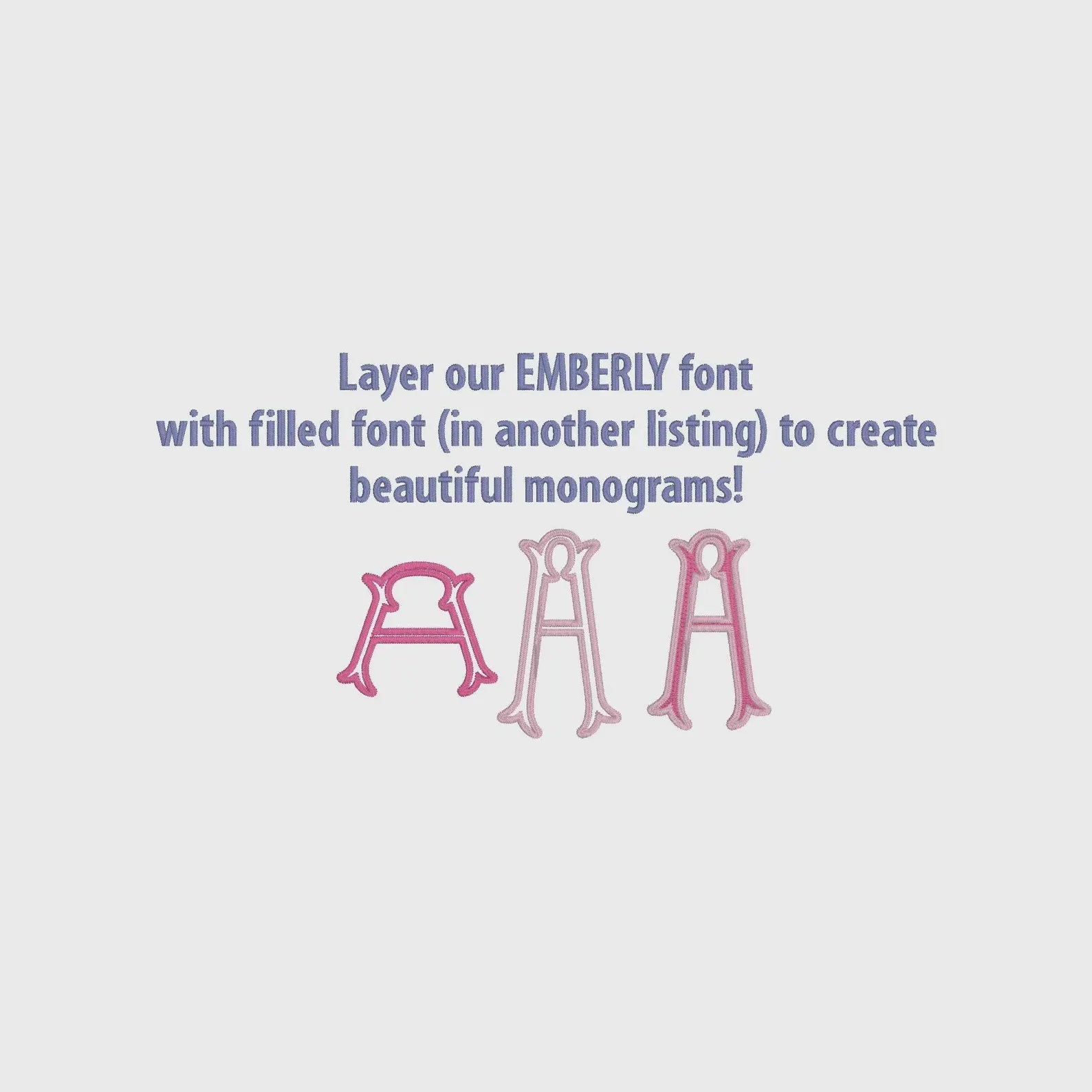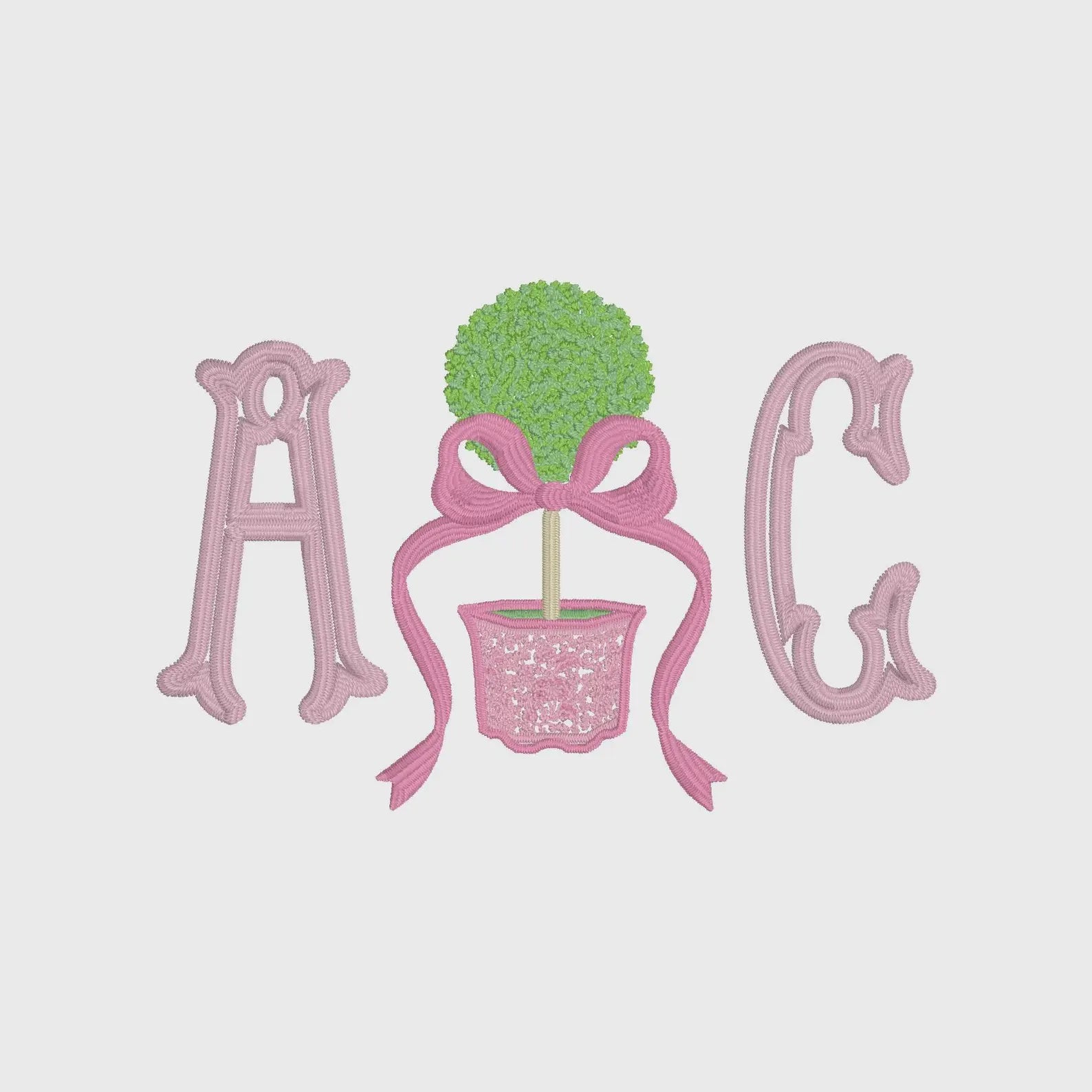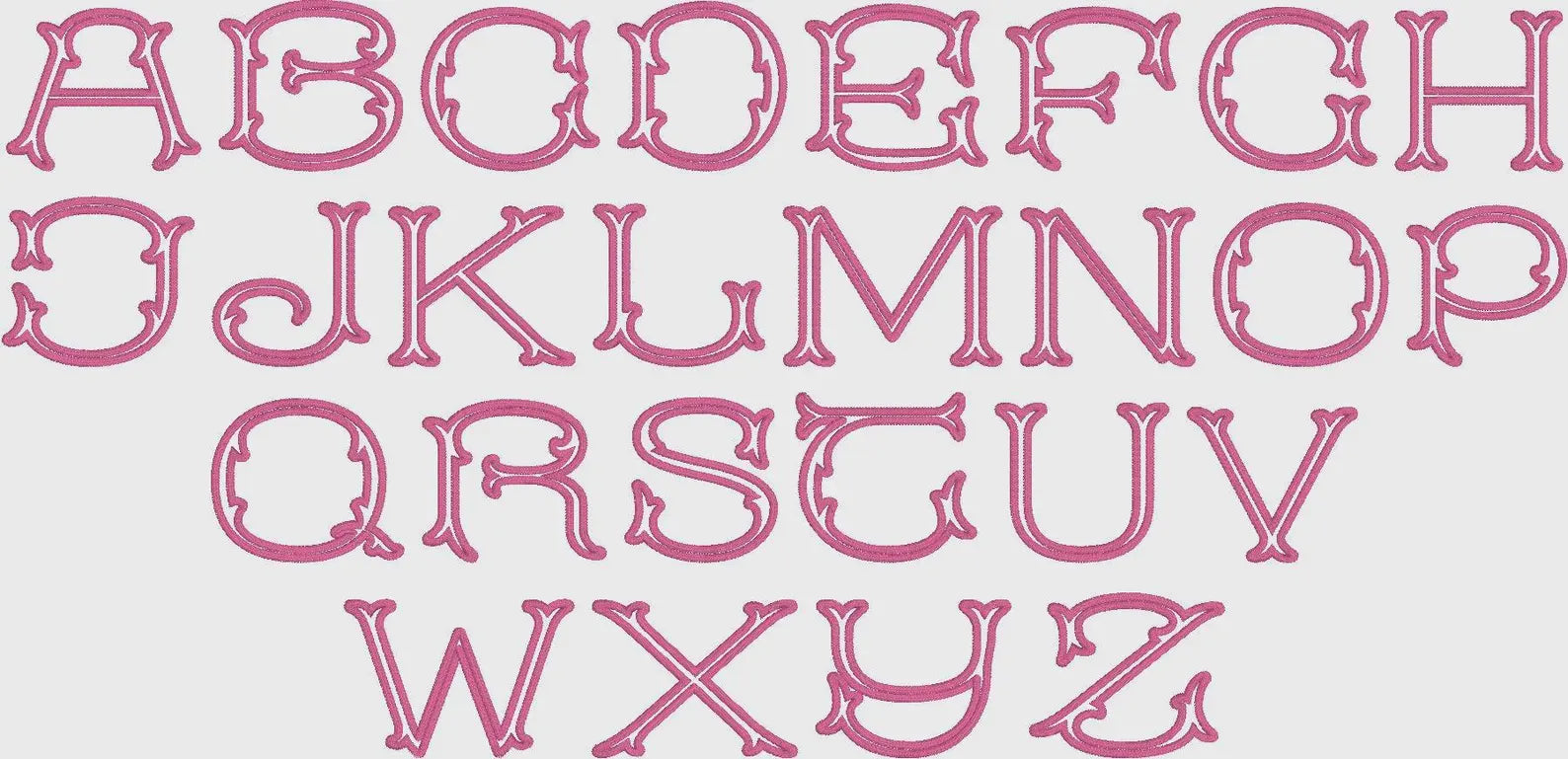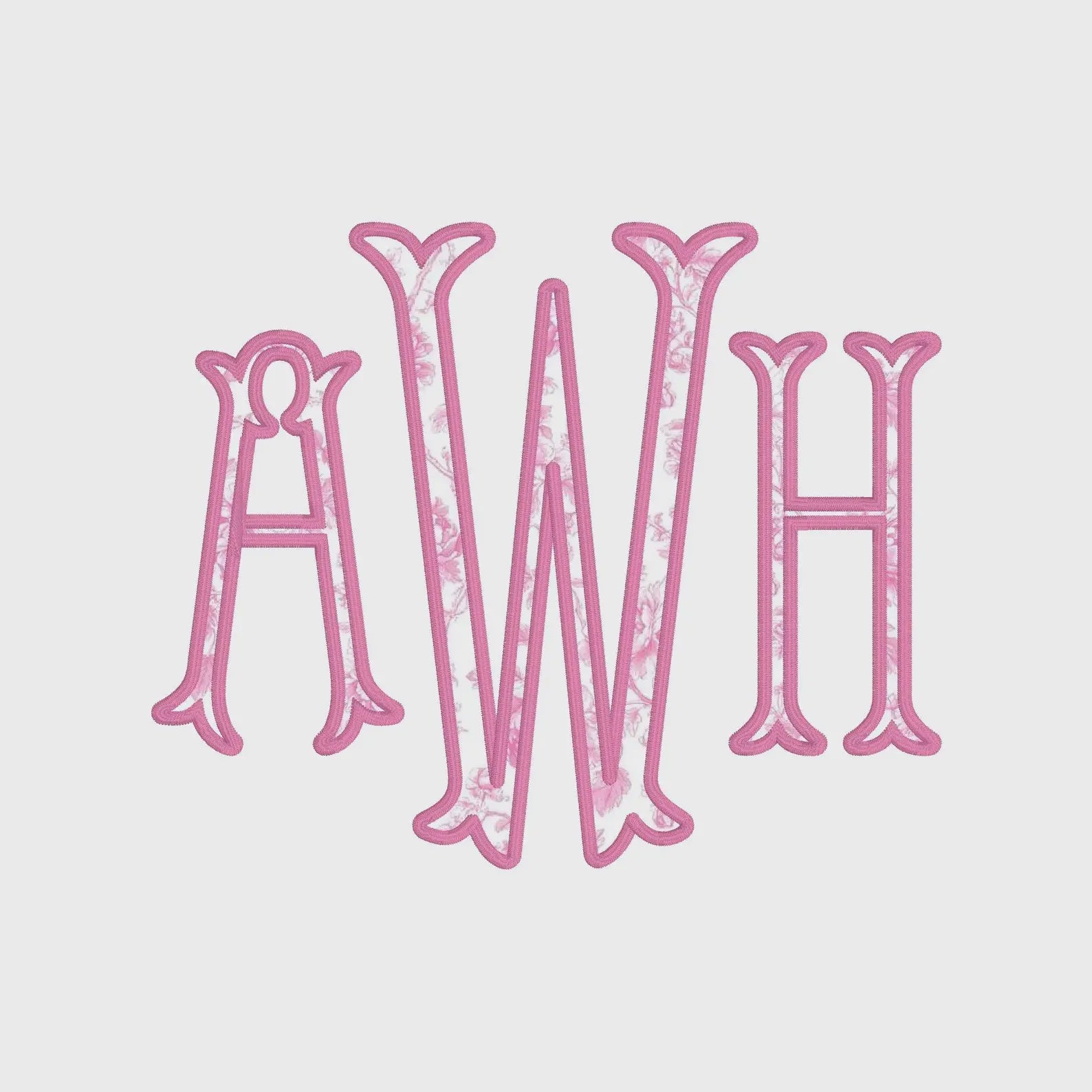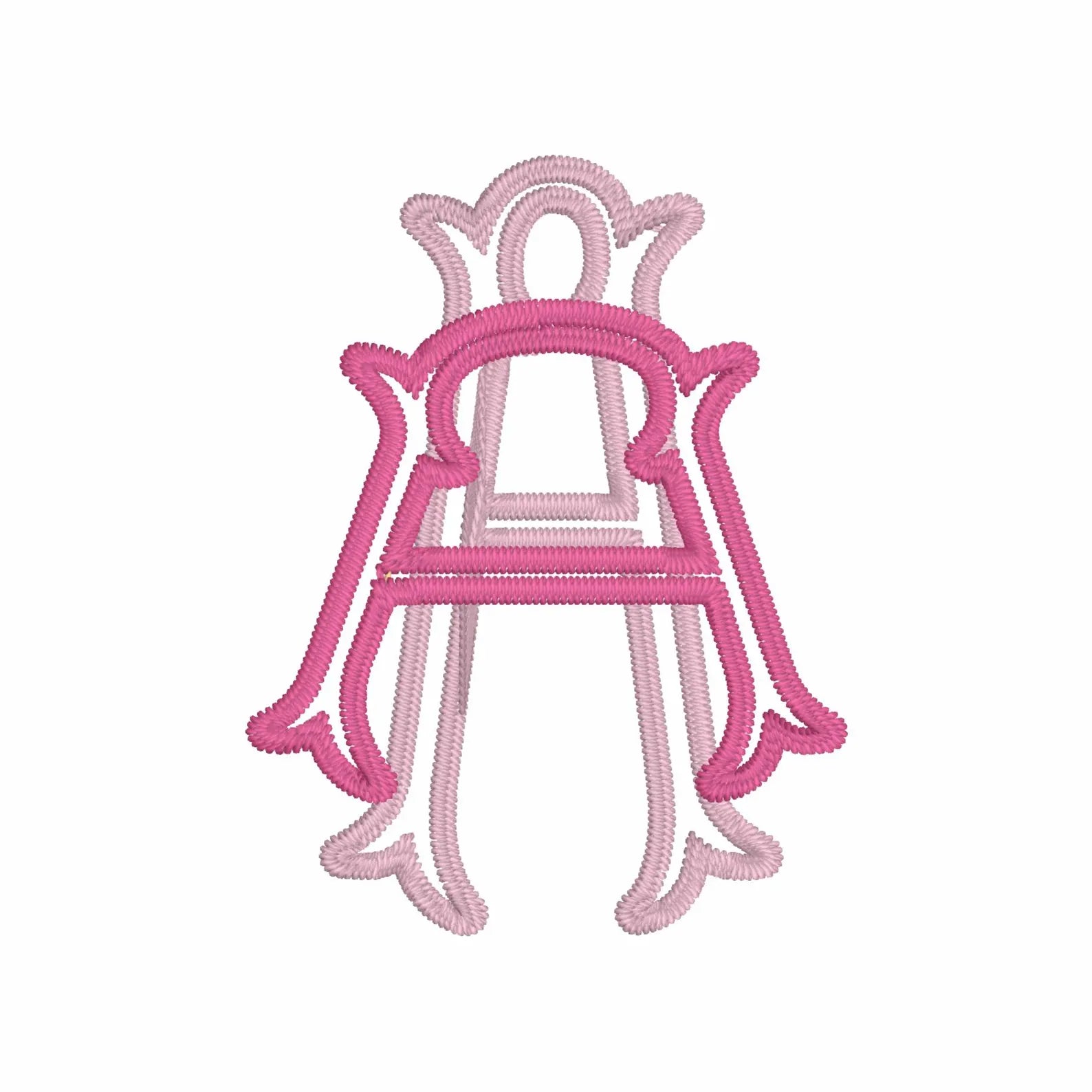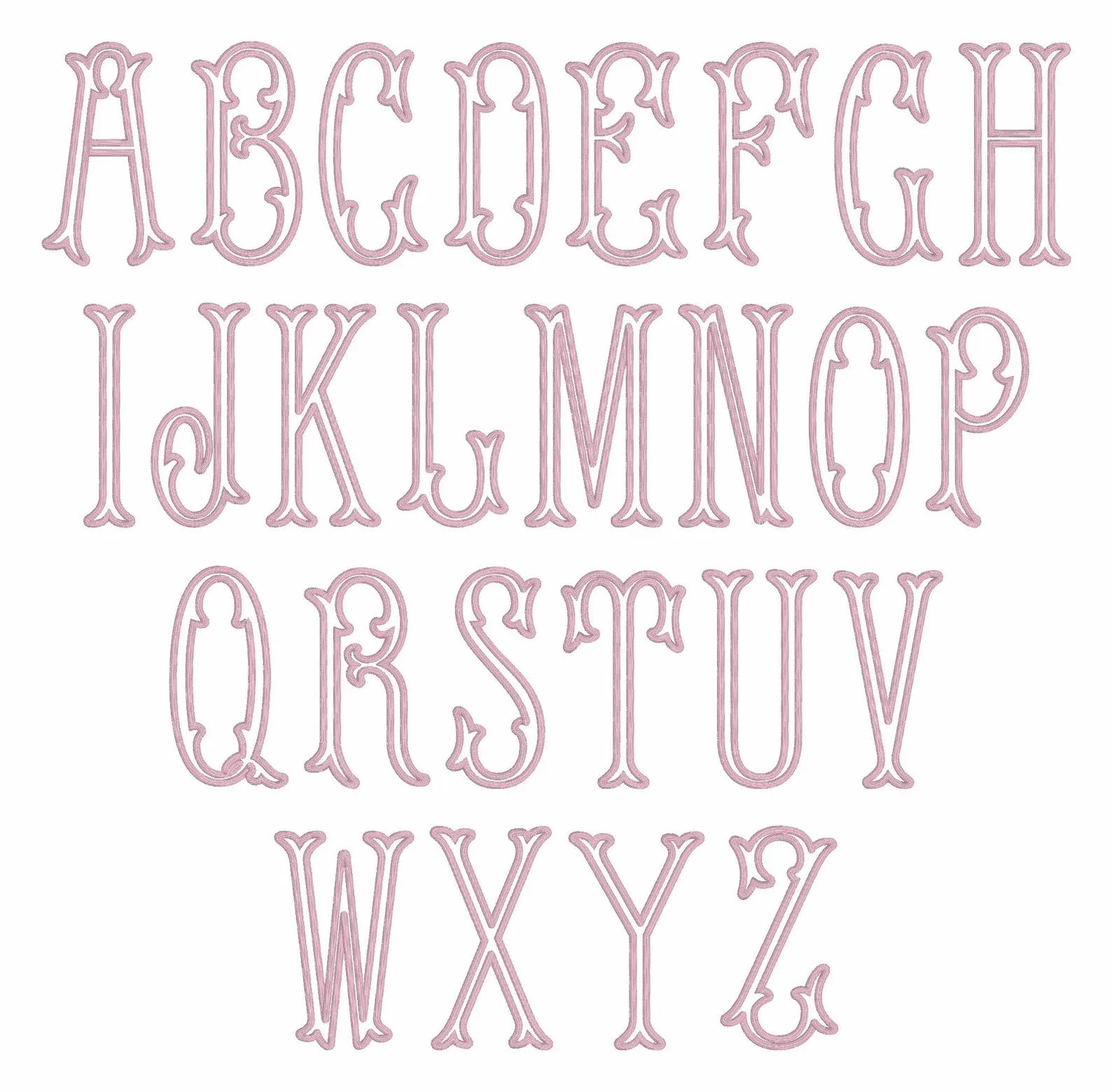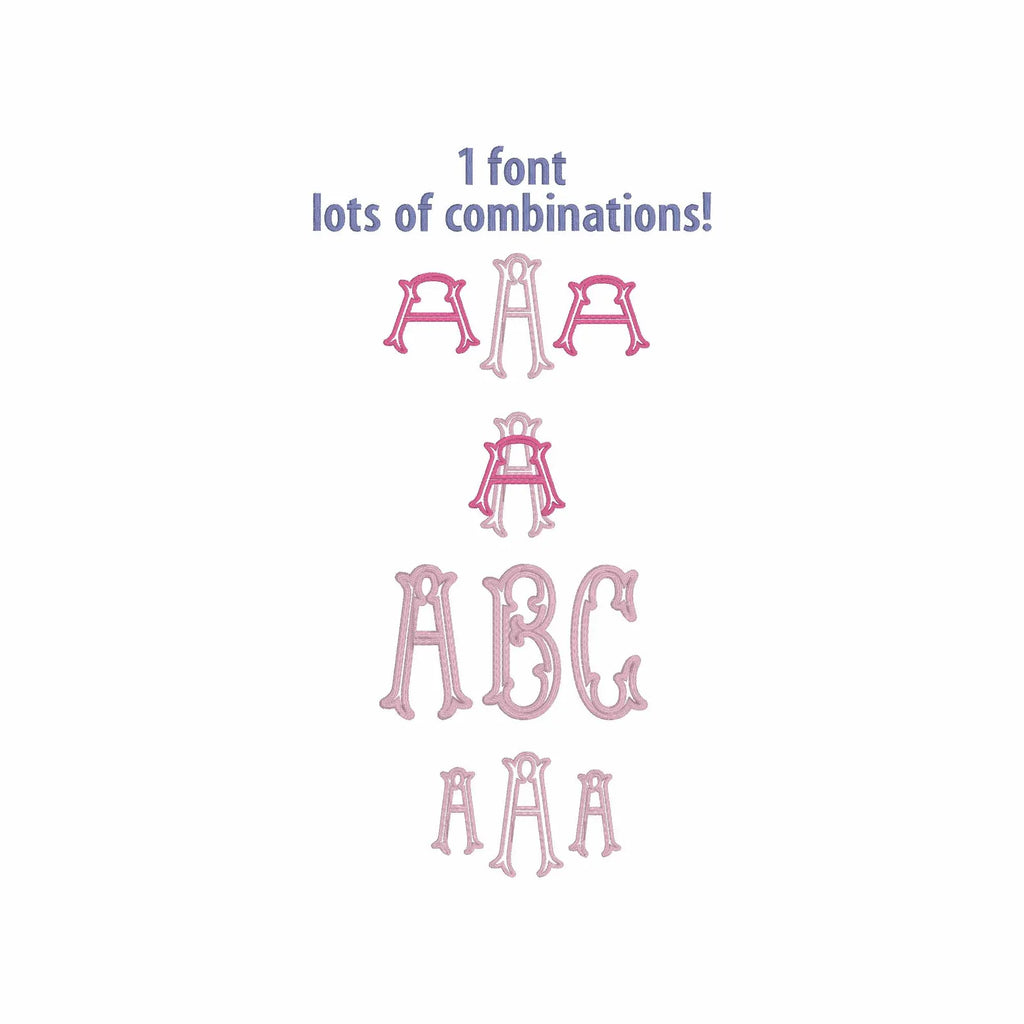
Emberly Appliqué Embroidery Font: 2-in-1 Fishtail Design (3-4 inch, BX + 9 Files)
While the 2 Sizes digitized are 3" and 4", they do vary per letter style (lowercase is smaller when used on its own) and can be slightly edited at your discretion. For the best stitch out, it is recommended to not stretch letters.
Editable Sizing Approx. 2"-4" tall with just about every size you could need! Change center letter size to create a traditional monogram or use as a name font. Interlock as an 2 Letter Font or use as a 3 Letter Font
Can be used with any fabric or use as outline stitch with no appliqué fill.